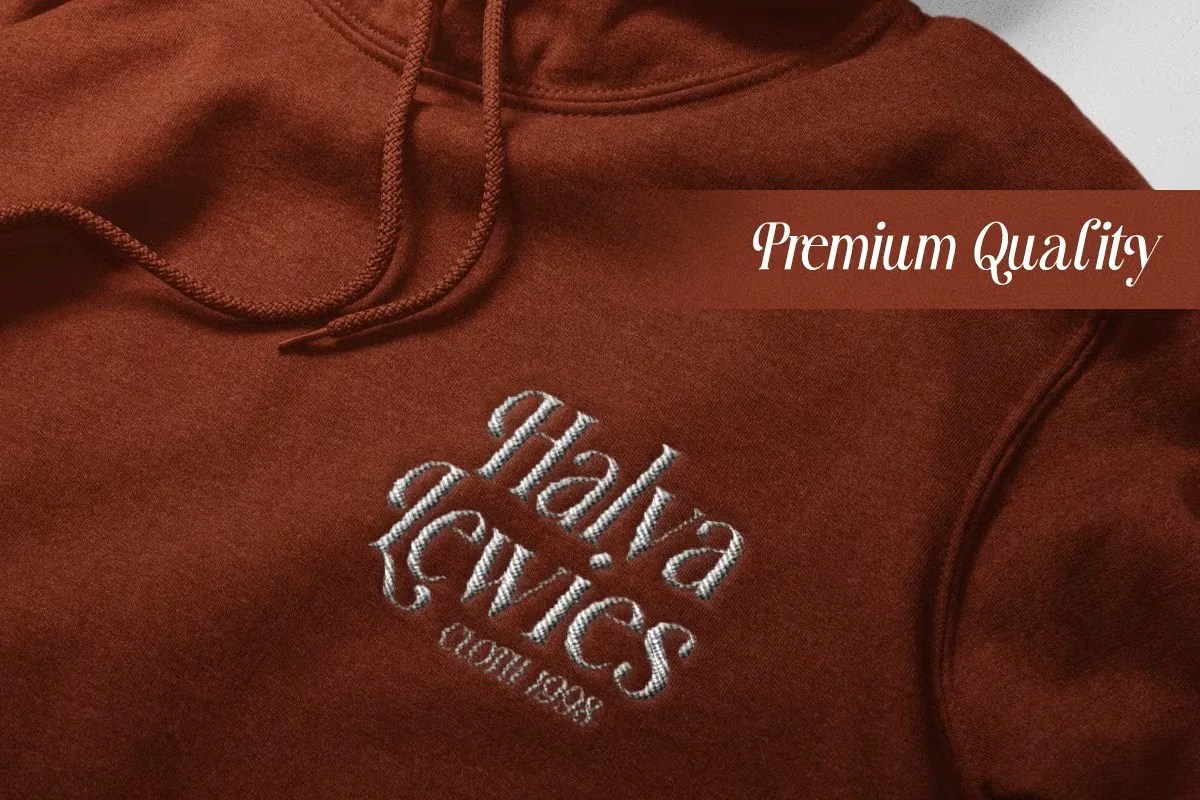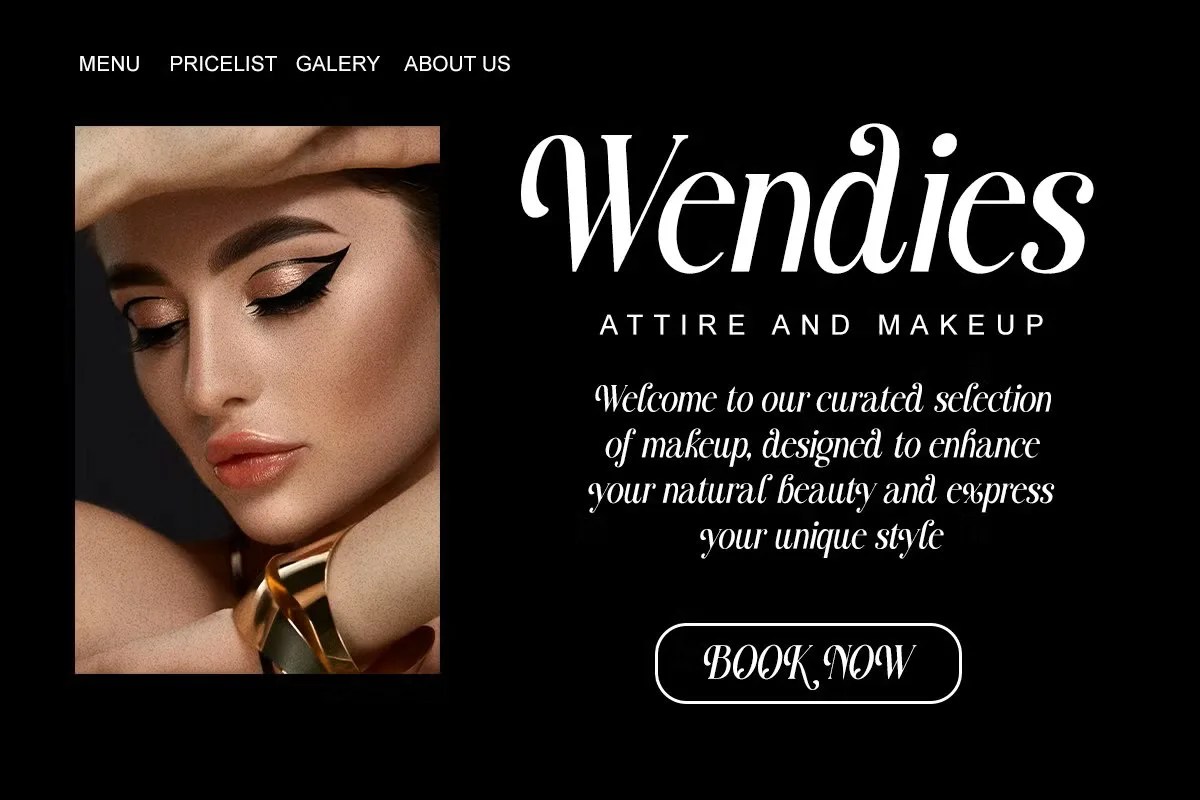
Ravsten by RagamKata. This is a bold and impactful vintage serif font with a strong, classic character. It feels drawn from the pages of an old storybook or carved into ancient stone. The typeface commands attention with its timeless and rugged aesthetic. Ravsten is perfect for projects that need to convey a sense of history, fantasy, or enduring strength, adding a layer of authenticity to your work.
This font is a powerful tool for creating a specific mood. Specifically, its classic feel is perfect for branding projects that evoke tradition and heritage. Think of a logo for a whiskey distillery or a classic menswear brand. Furthermore, this vintage serif font is an amazing choice for book covers, especially in the fantasy and historical fiction genres. It can also give a cinematic quality to posters and headlines for epic films or video games. Use it anywhere you need to make a bold, historic statement.
• Bold and classic vintage serif style
• Features sharp, well-defined serifs
• Ideal for historical branding, logos, and book covers
• Adds a timeless and rugged feel
Ravsten